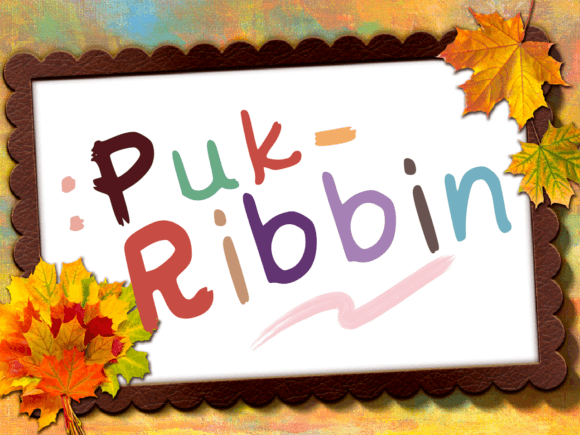
Introducing Puk Ribbin - a stunning handwritten font that breathes life into your creative projects. With its signature streak at the end of each letter, this font adds a touch of elegance and individuality to your words, making them stand out from the crowd.
Puk Ribbin's graceful strokes and flowing lines evoke a sense of artistry and craftsmanship. It's perfect for adding a personal touch to your letters, greeting cards, wedding invitations, and any other project where you want your words to shine.
This versatile font seamlessly blends classic and contemporary styles, making it suitable for a wide range of applications. From elegant invitations to playful social media posts, Puk Ribbin adapts effortlessly to your creative vision. It's a font that speaks volumes, conveying emotions and messages with its unique aesthetic.
With Puk Ribbin, your words will resonate with a deeper meaning. Its distinctive design captures attention and invites readers to engage with your content. Whether you're a designer, a blogger, or simply someone who loves to express themselves through words, Puk Ribbin is the perfect font to elevate your creations and make a lasting impression.